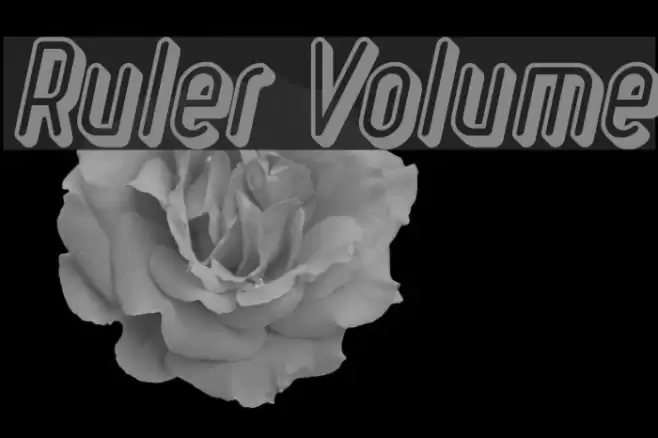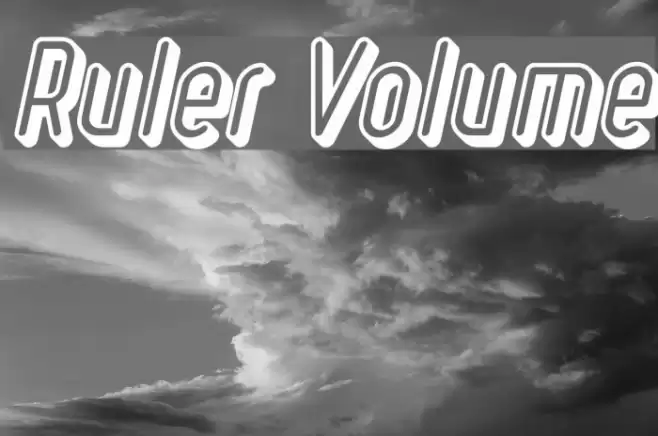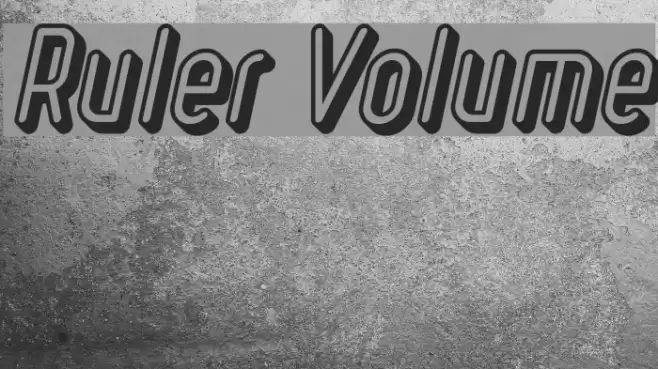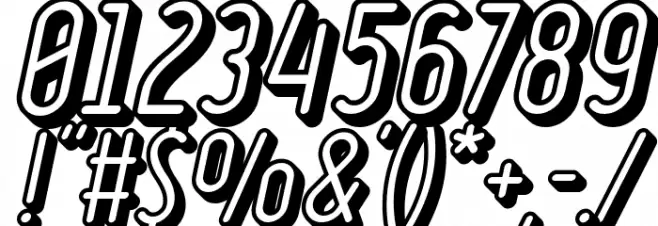
Ruler Volume Font
Ruler Volume Description
This font features a bold, dynamic style with a three-dimensional effect created by a thick outline shadow. The characters are slightly slanted, giving them an italicized appearance, while maintaining a strong and impactful presence. The uppercase and lowercase letters are consistent in style, with rounded edges and a smooth flow. The numerals and special characters follow the same design principles, ensuring uniformity across all glyphs. This font is ideal for projects that require a modern and energetic look, such as sports branding, dynamic posters, or eye-catching headlines.
A bold, italicized font with a 3D shadow effect, perfect for dynamic and modern designs from Uncategorized fonts.
- Proposed Projects: Ideal for sports branding, dynamic posters, eye-catching headlines, and modern advertisements.